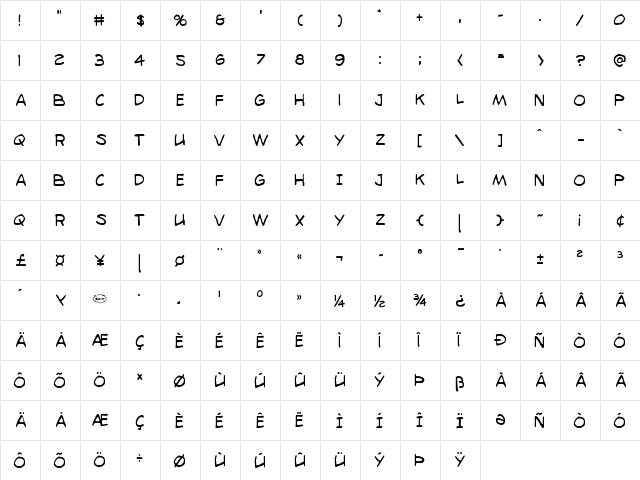
98 Bottles of Beer Condensed Condensed
Design Context for 98 Bottles of Beer Condensed Typeface
98 Bottles of Beer Condensed is a composed and adaptable typeface that performs quietly and consistently across a wide range of design contexts. The condensed width makes it efficient for tight spaces without sacrificing legibility.